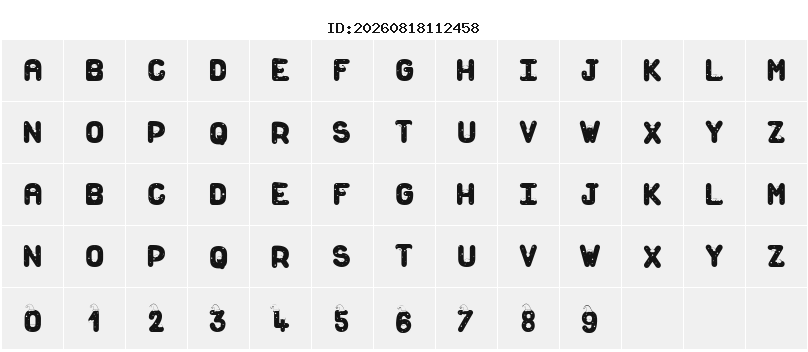
Snow For Santa Preview
• Font Name: Snow For Santa
• Full Font Name: Snow For Santa
• Designer: dcoxy Medina Gregory
• Manufacturer: dcoxy Medina Gregory
About Snow For Santa.ttf
Snow For Santa.ttf is a modern, elegant sans-serif font designed for ultimate readability and visual harmony. Perfect for branding, headlines, web design, and print materials.